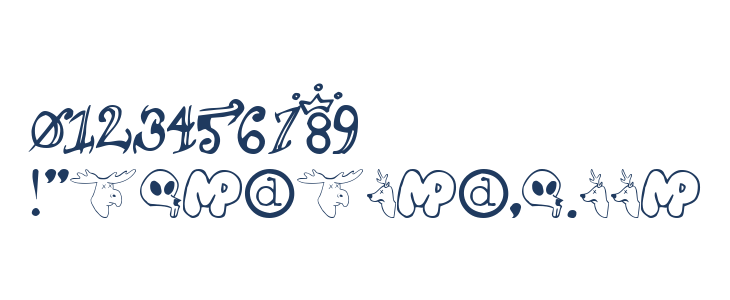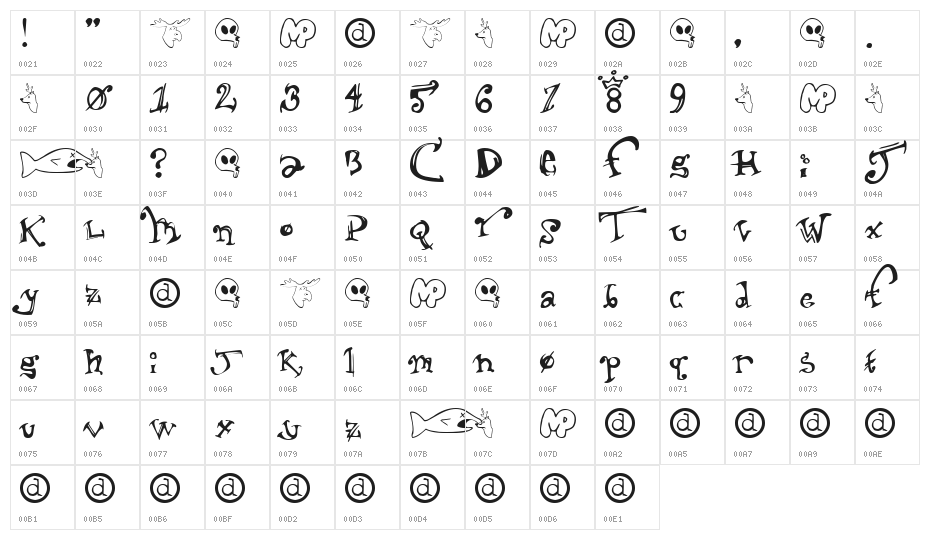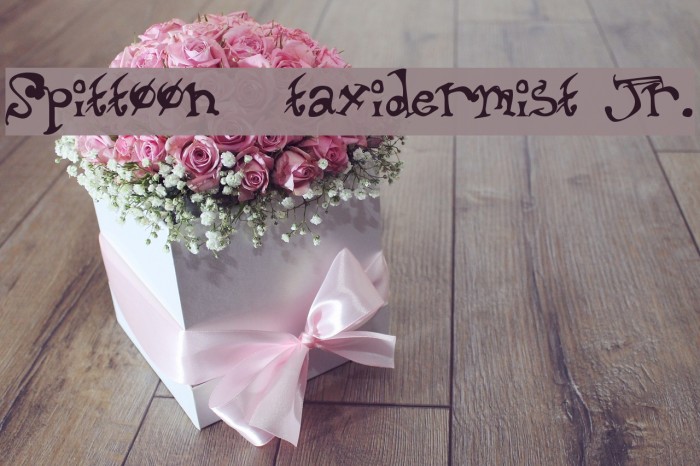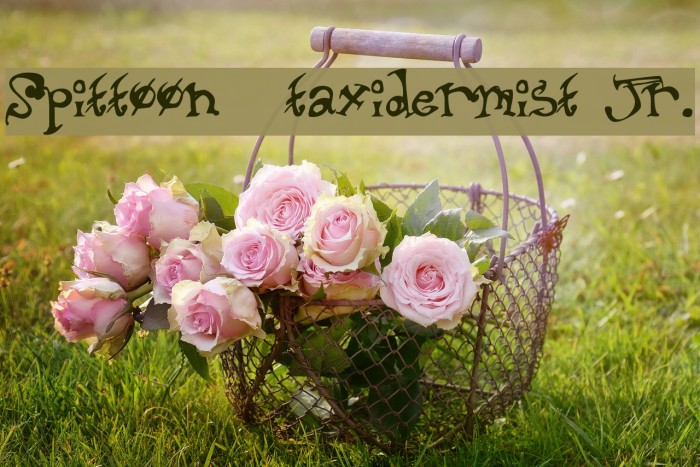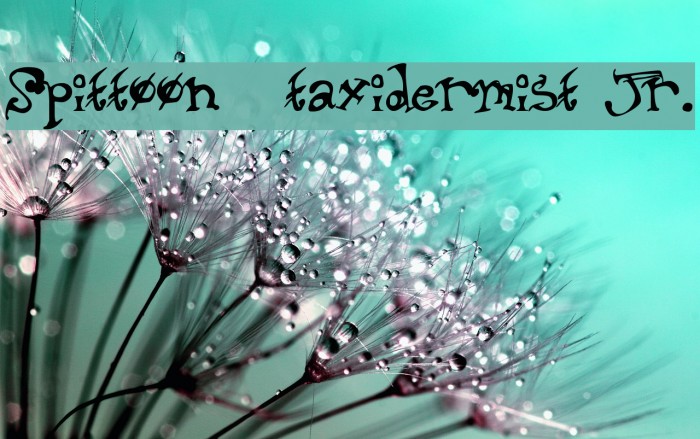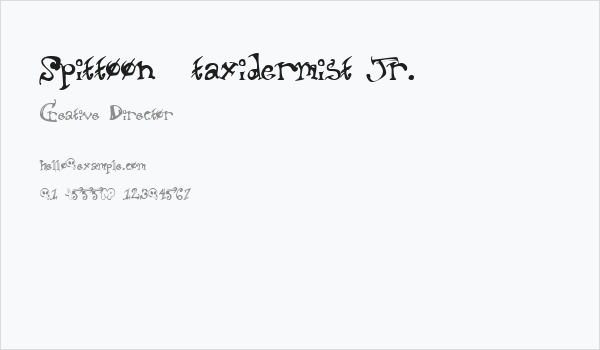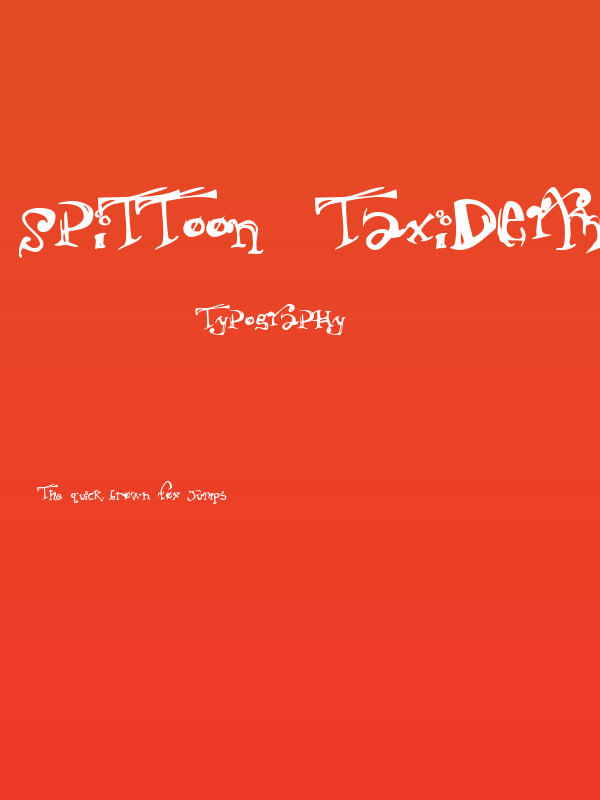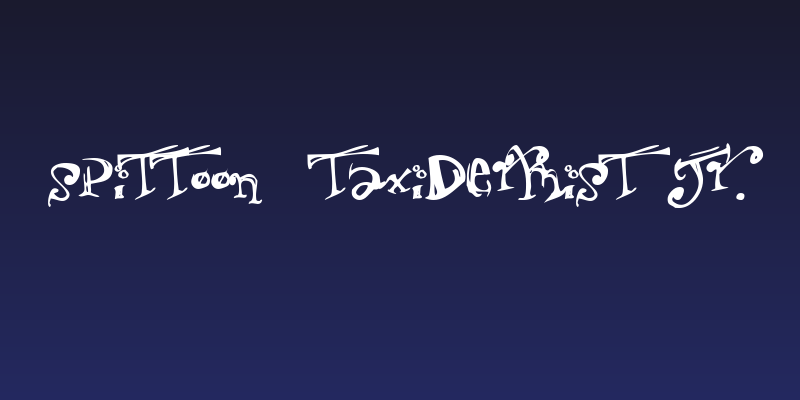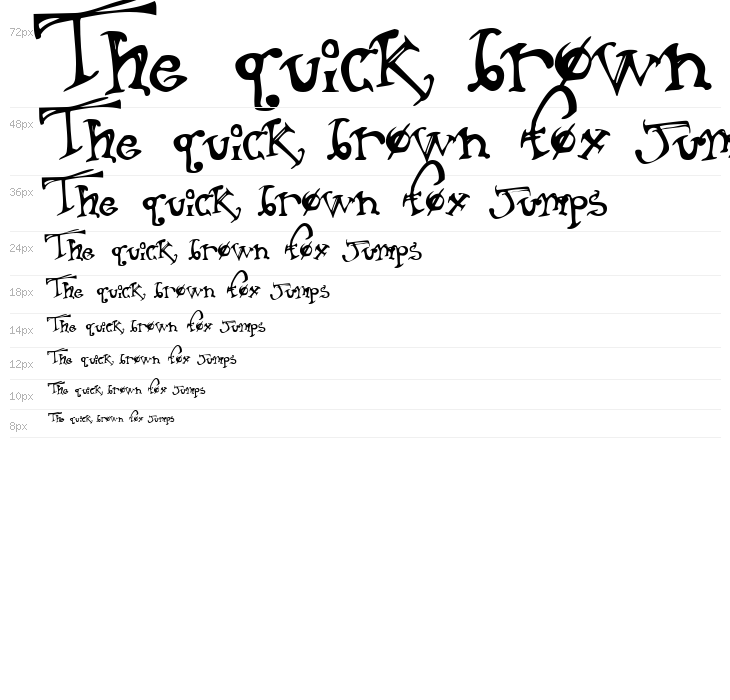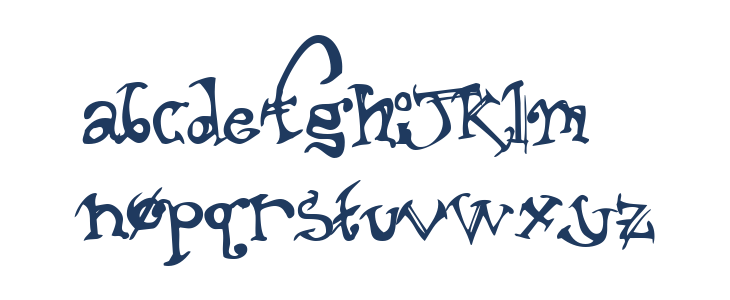
Spittoon taxidermist jr. Font
Spittoon taxidermist jr. Description
This font exhibits a highly decorative and whimsical style, characterized by its playful and exaggerated letterforms. Each character is uniquely crafted with an artistic flair, featuring unexpected curves, loops, and embellishments that give it a lively and dynamic appearance. The uppercase and lowercase letters maintain a consistent theme of creativity, with some letters incorporating elements that resemble musical notes or abstract shapes. The numbers and special characters continue this imaginative design, making the font suitable for projects that require a bold and unconventional aesthetic. Its distinctiveness makes it stand out, capturing attention with its artistic and slightly chaotic vibe.
| Proposed Projects | Ideal for creative projects such as posters, album covers, children's books, or any design that seeks to convey a sense of fun and imagination. |